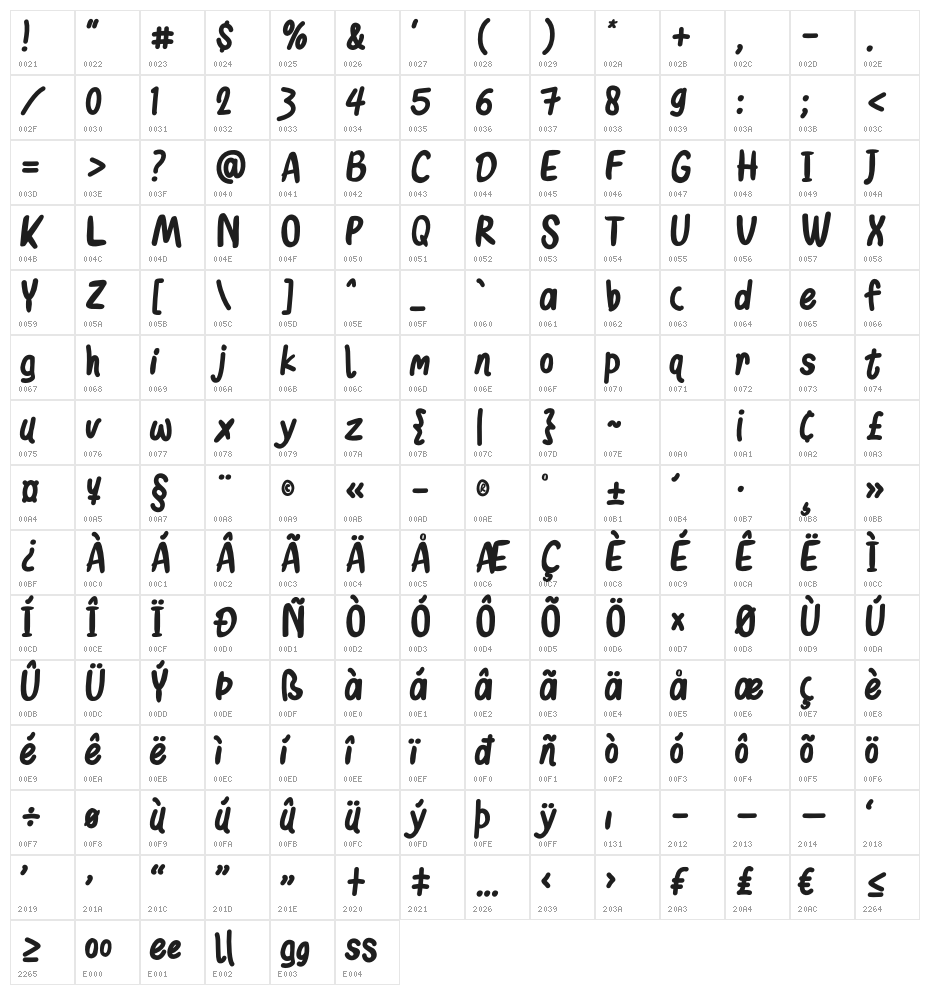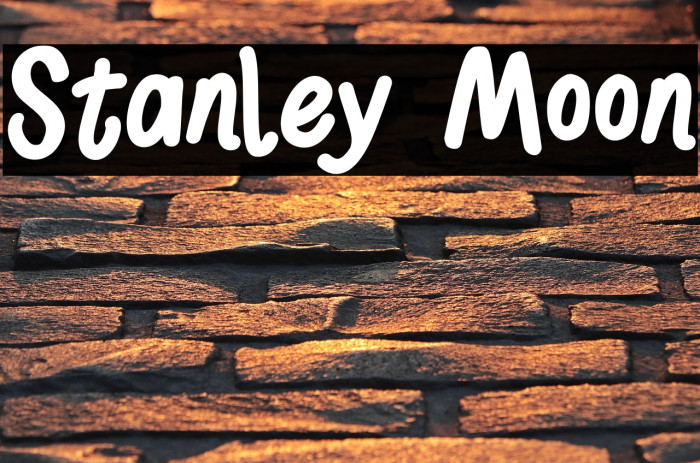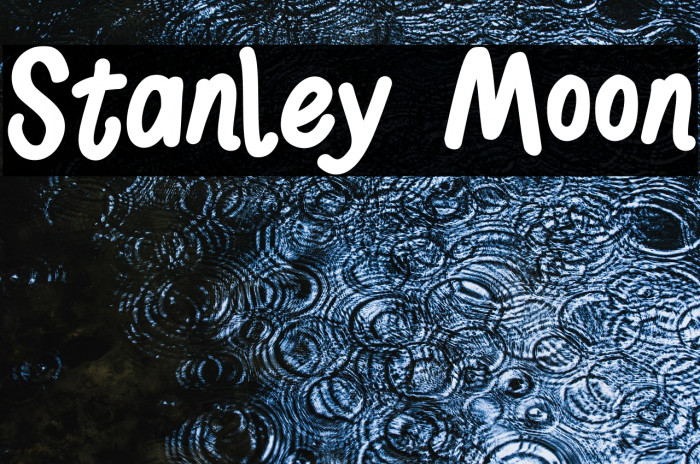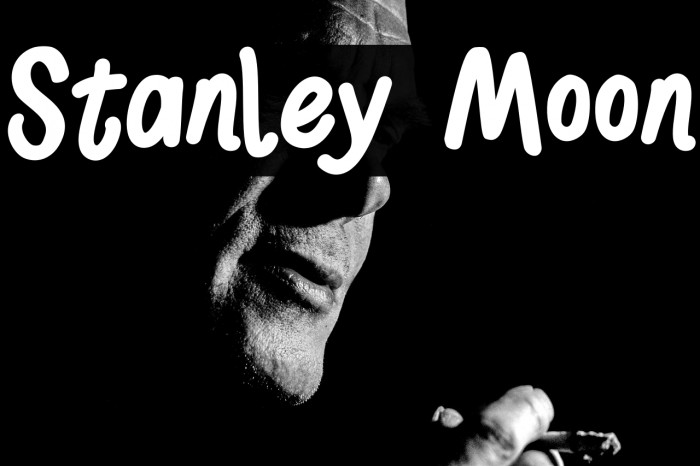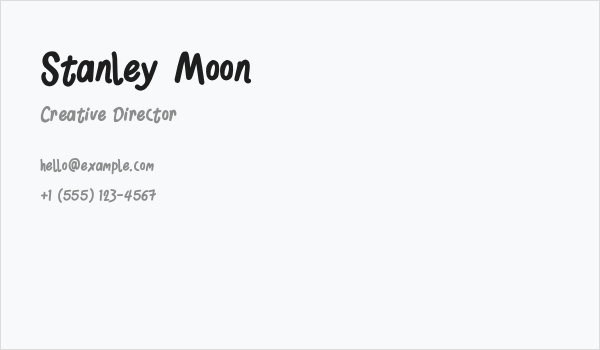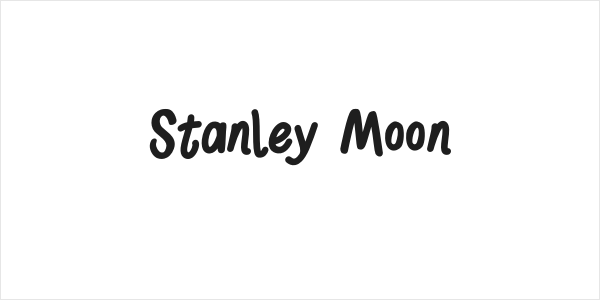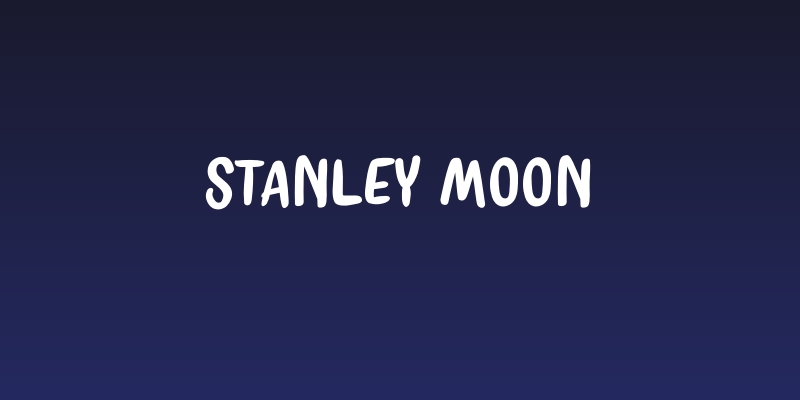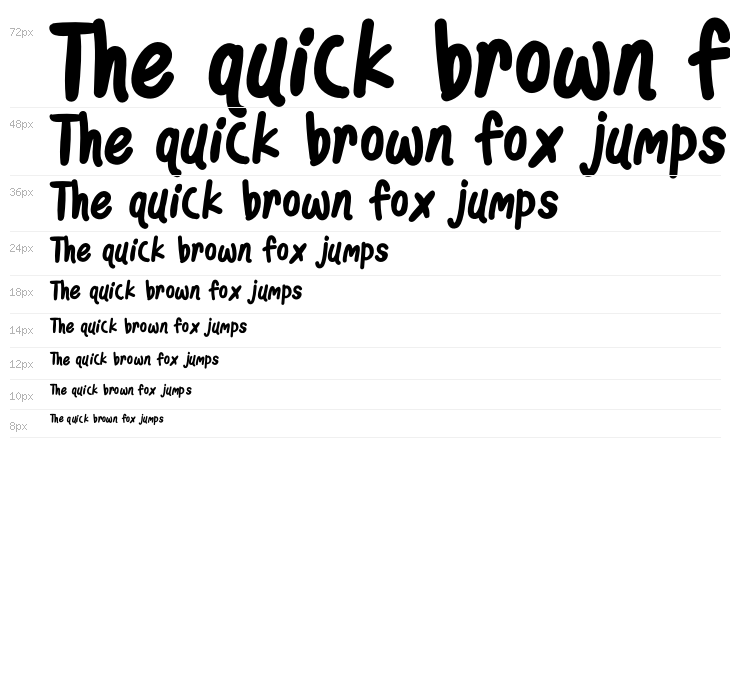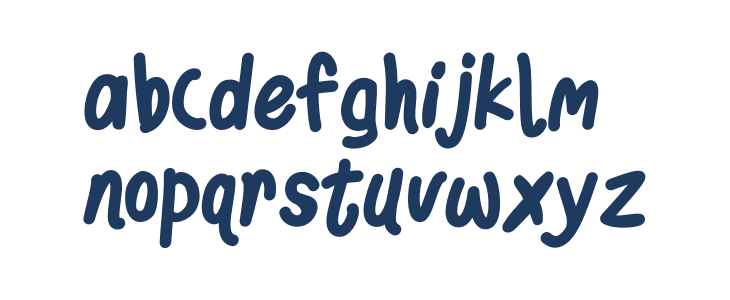
Stanley Moon Font
Stanley Moon Description
This font exhibits a playful and bold handwritten style, characterized by its rounded and slightly irregular letterforms. The strokes are thick and consistent, providing a strong visual impact. The uppercase and lowercase letters maintain a cohesive look, with a casual and friendly appearance. The numbers and special characters follow the same design principles, ensuring uniformity across all glyphs. This font's informal and approachable style makes it suitable for creative and fun projects.
| Proposed Projects | Ideal for children's books, greeting cards, playful branding, and social media graphics. |